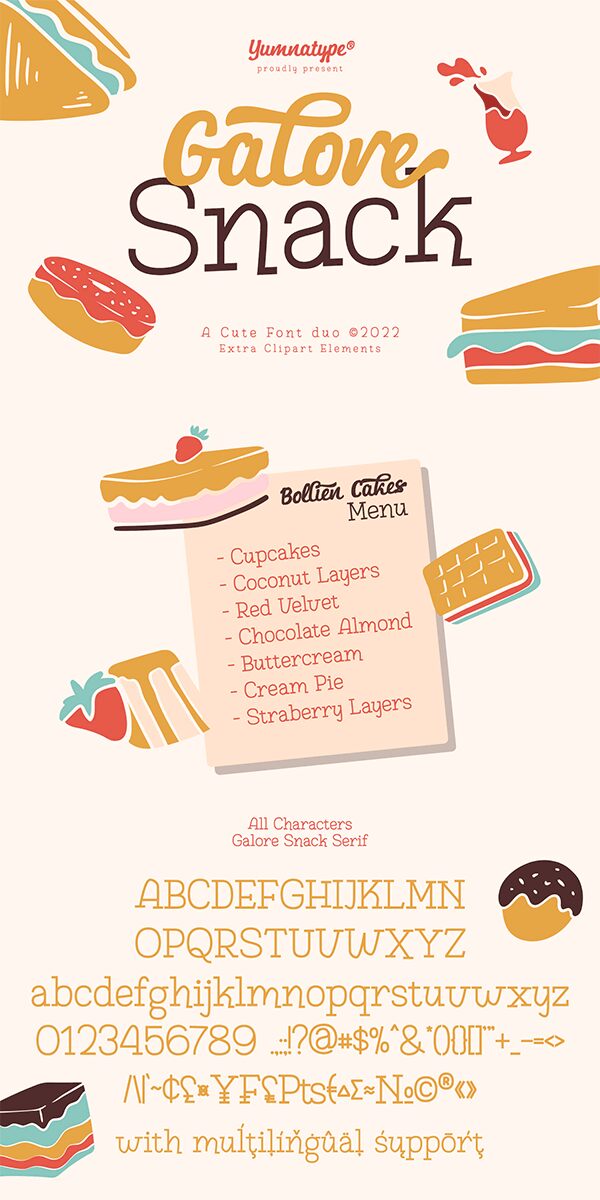
Galore Snack Personal Use
Galore Snack font from Yumna Family is a bold brush script font with nostalgic energy, a retro look, and casual elegance. With inspirations from the 70s and 80s design culture, it features cursive connected letters that don’t fail to capture attention. Its laid-back character gives projects an authentic vibe and creates enriching visual experiences for audiences.
Injecting vintage feel into projects becomes easy with Galore Snack in usage for music album covers, flyers, book titles, magazine covers, posters, branding designs and more. Additionally, web page headlines as well as various social media images will also find new life with this free retro font putting on display its unique qualities.